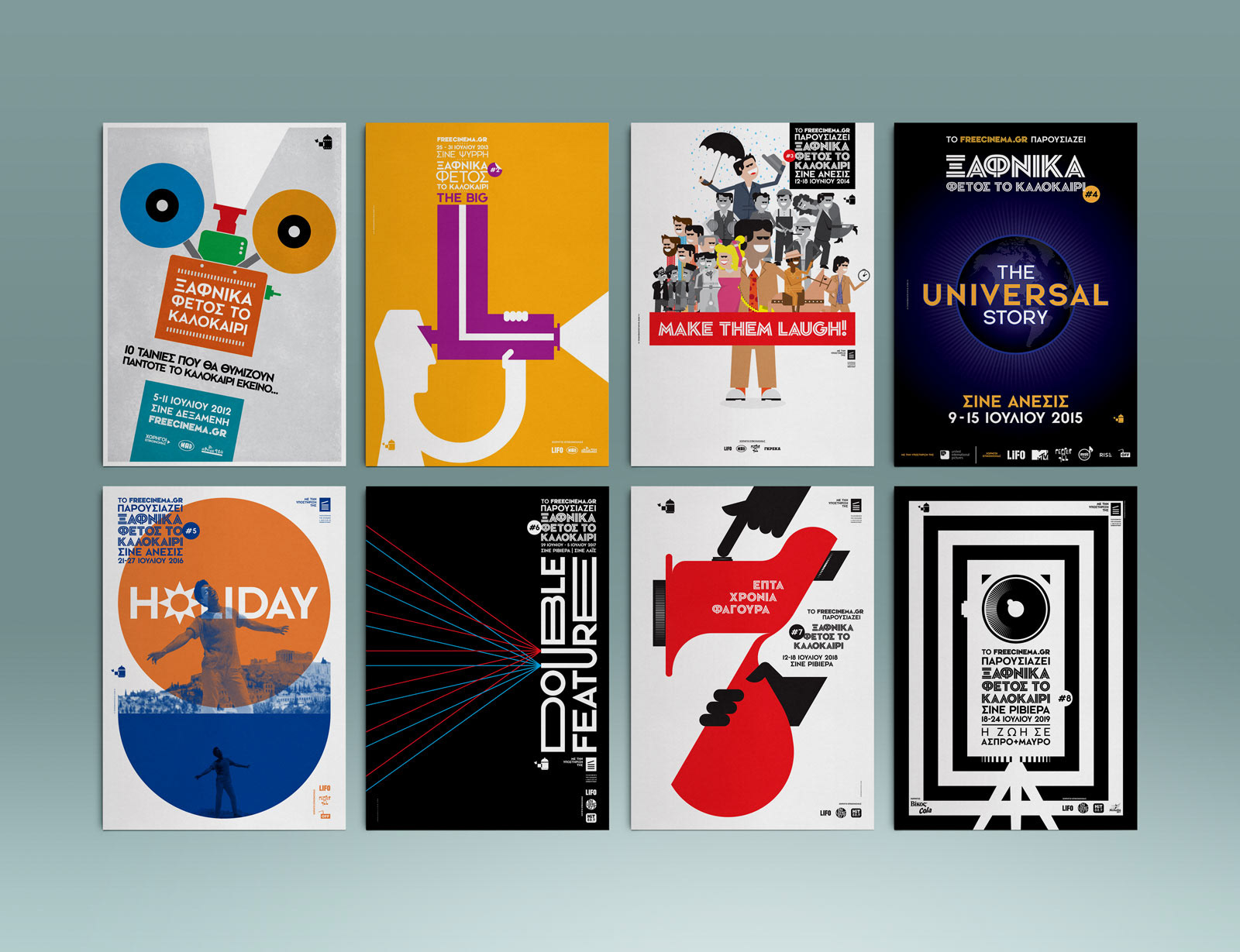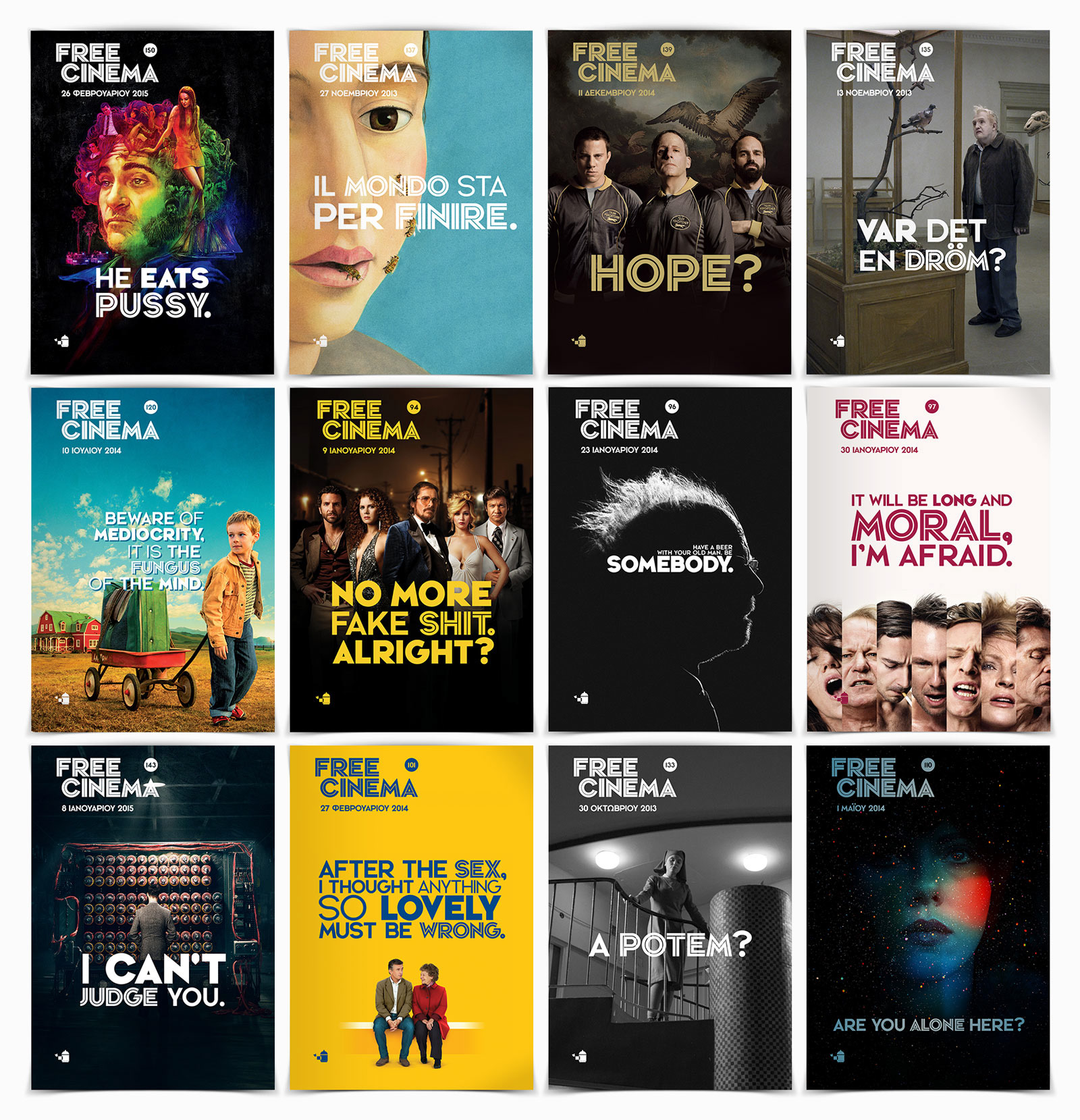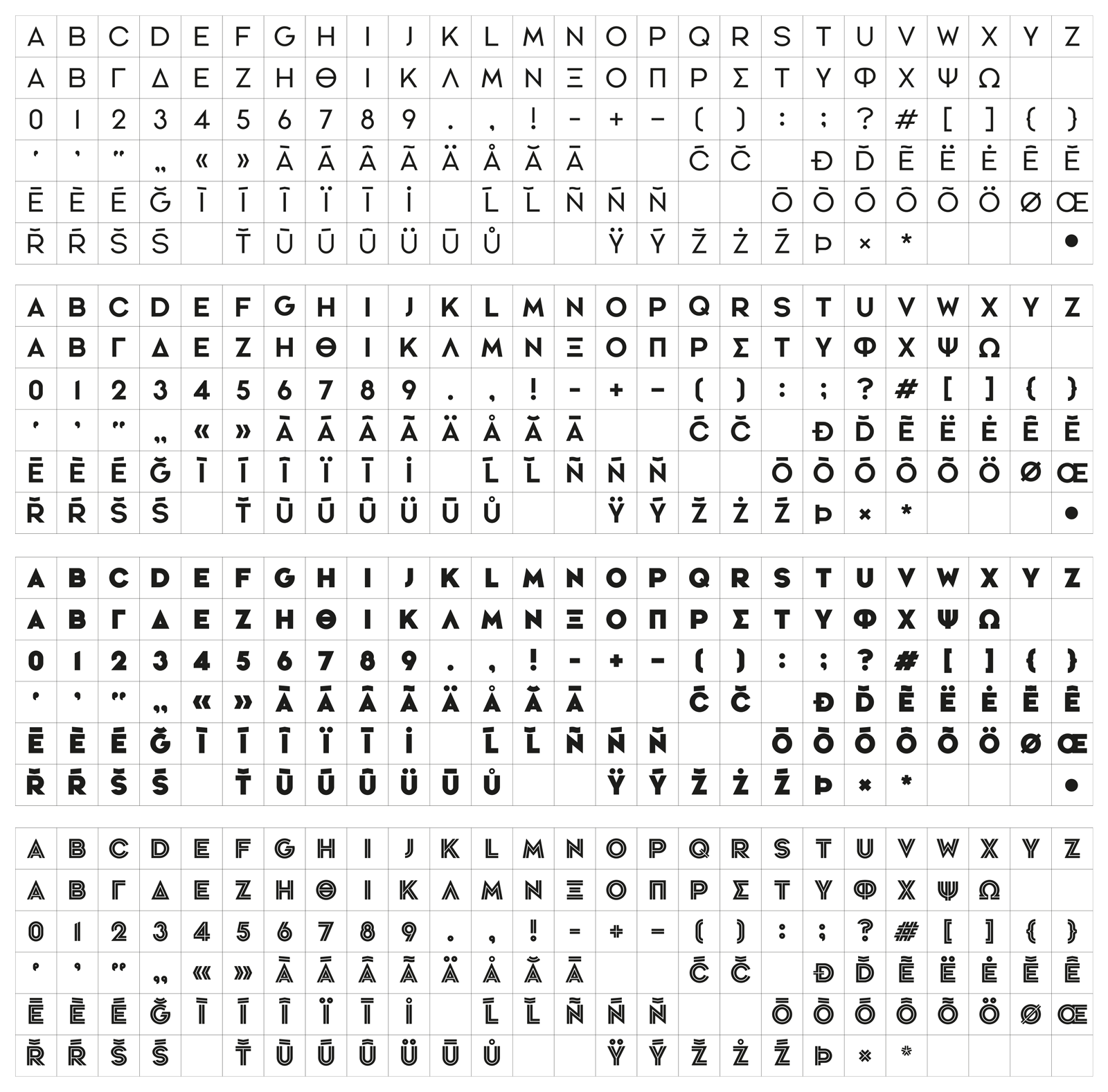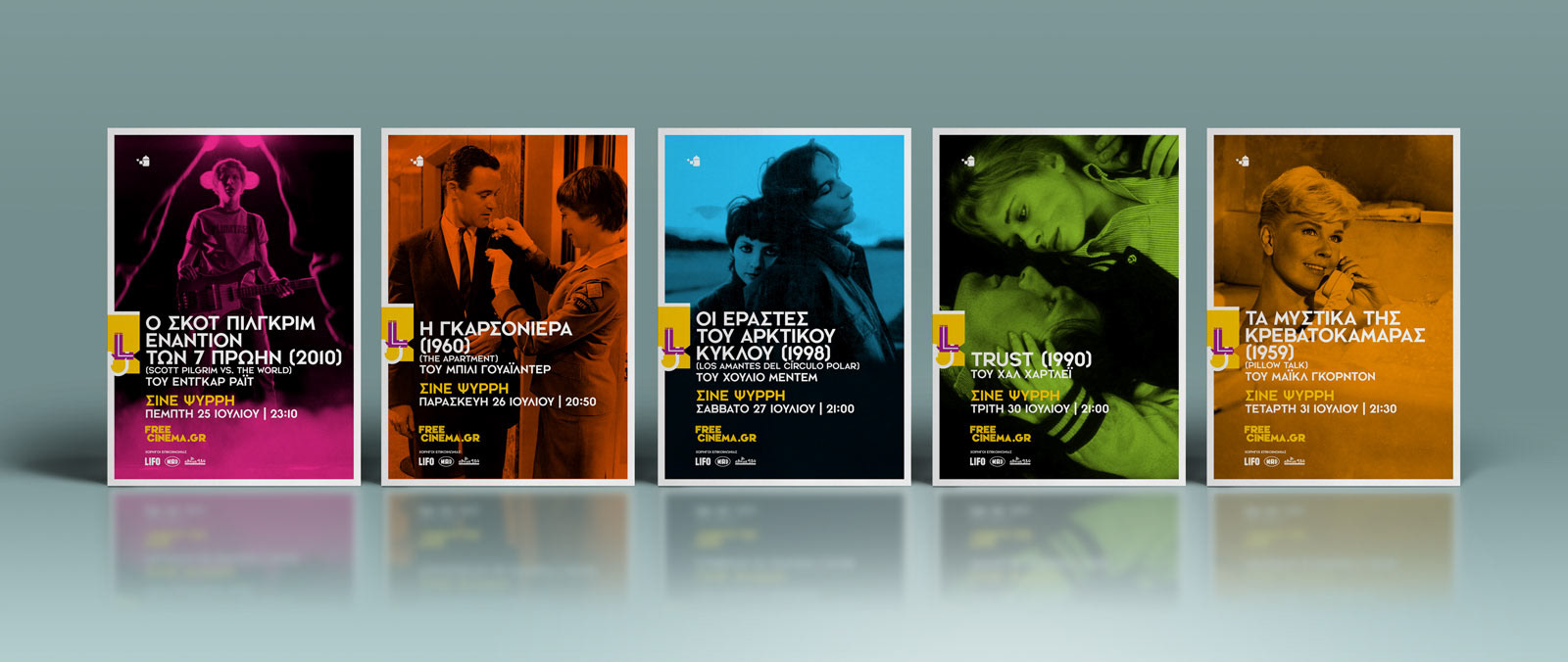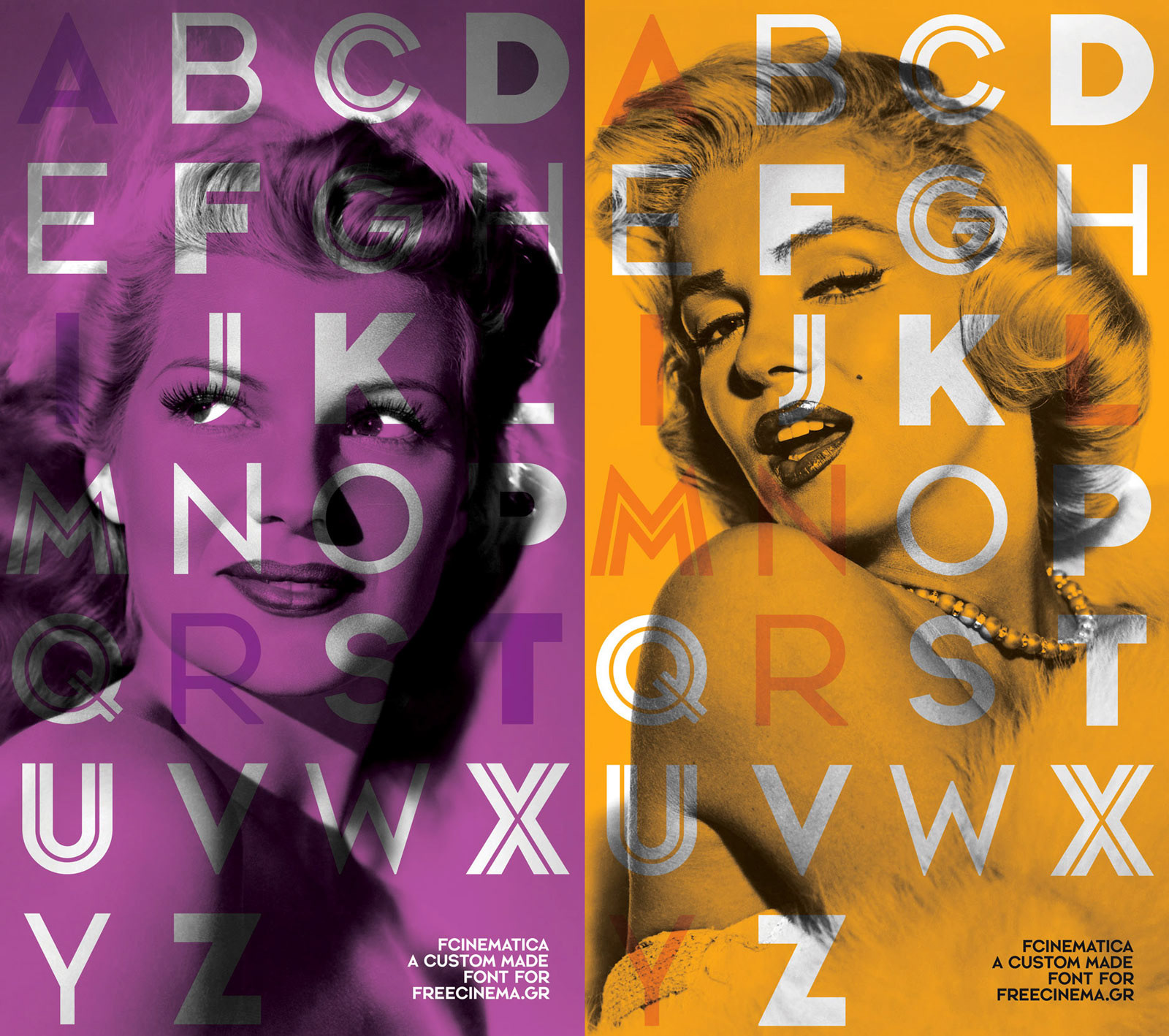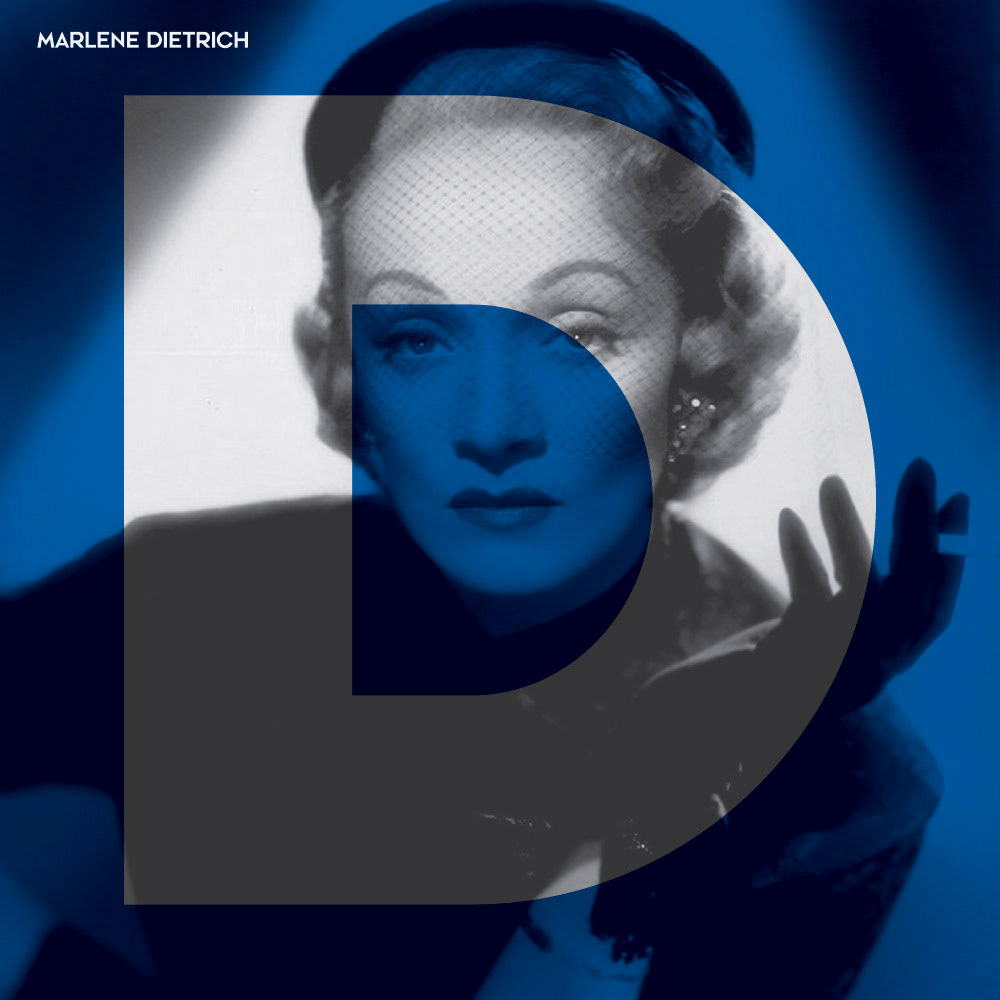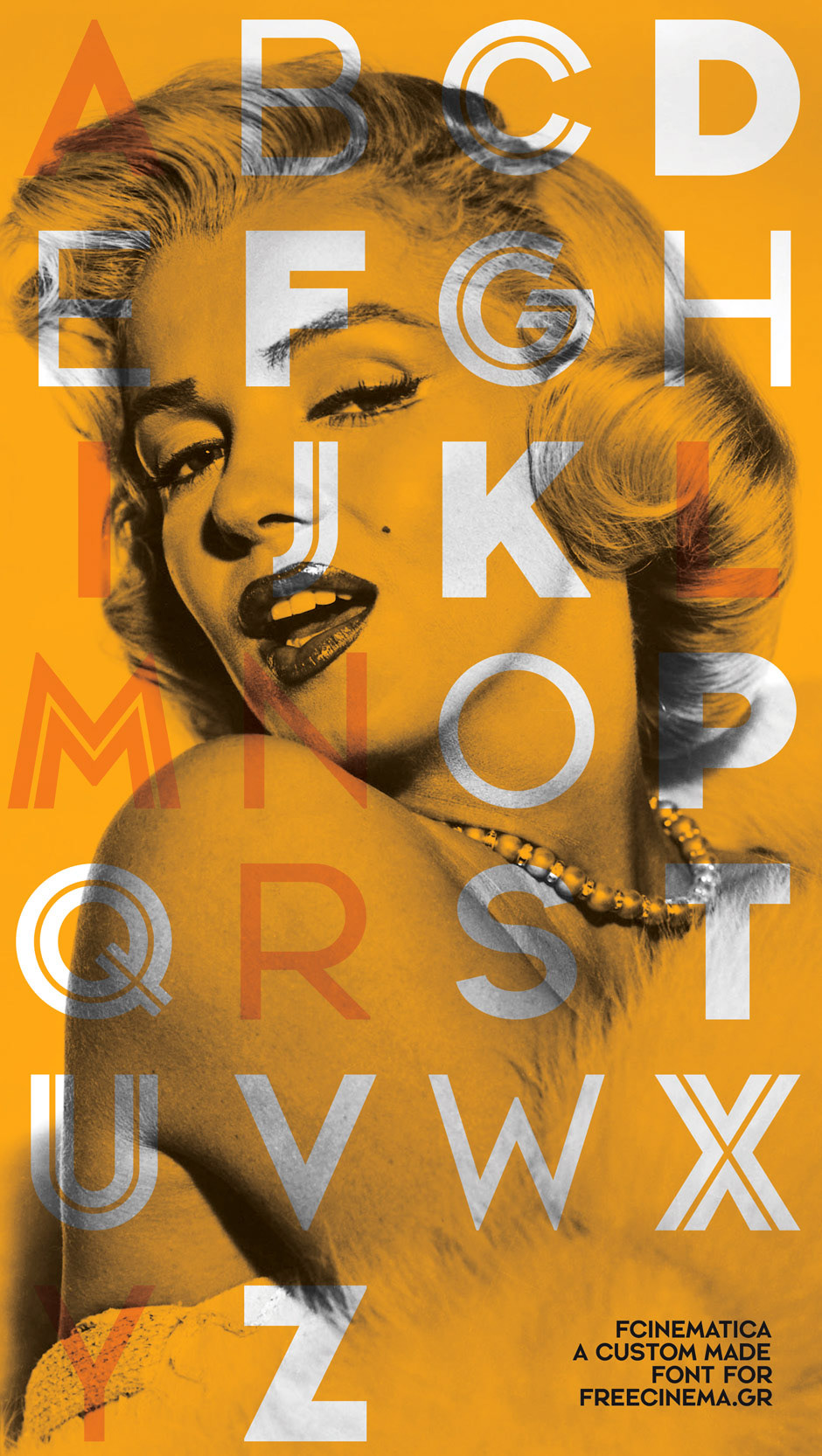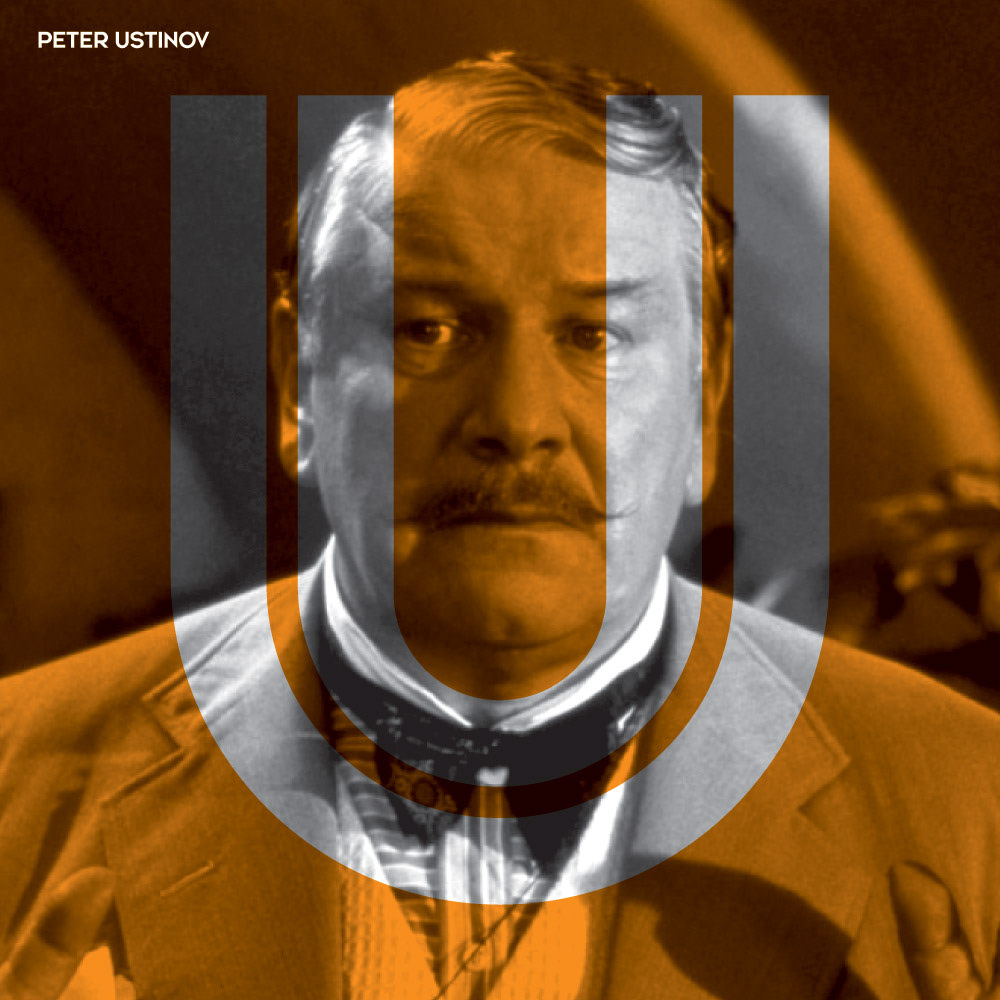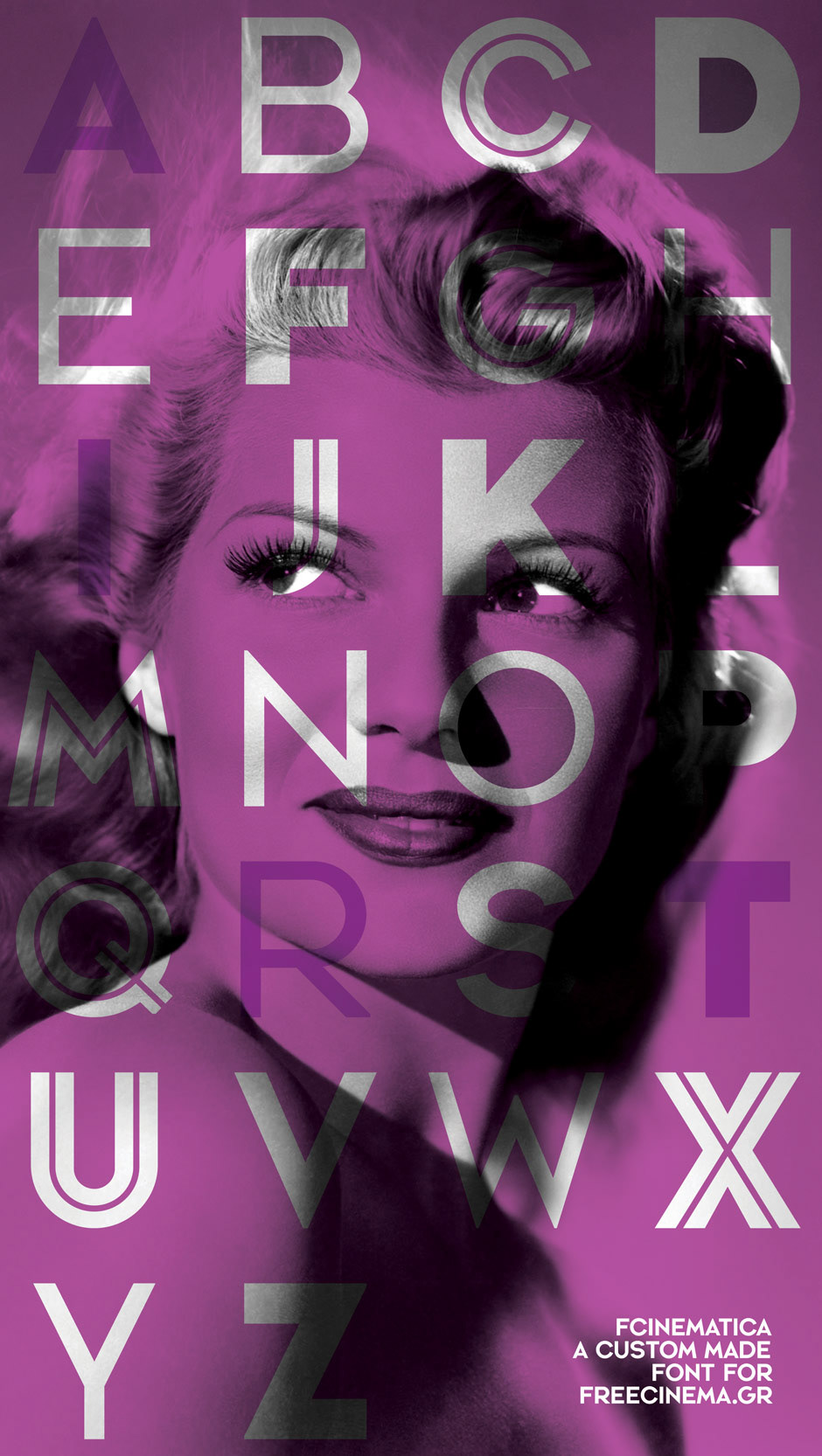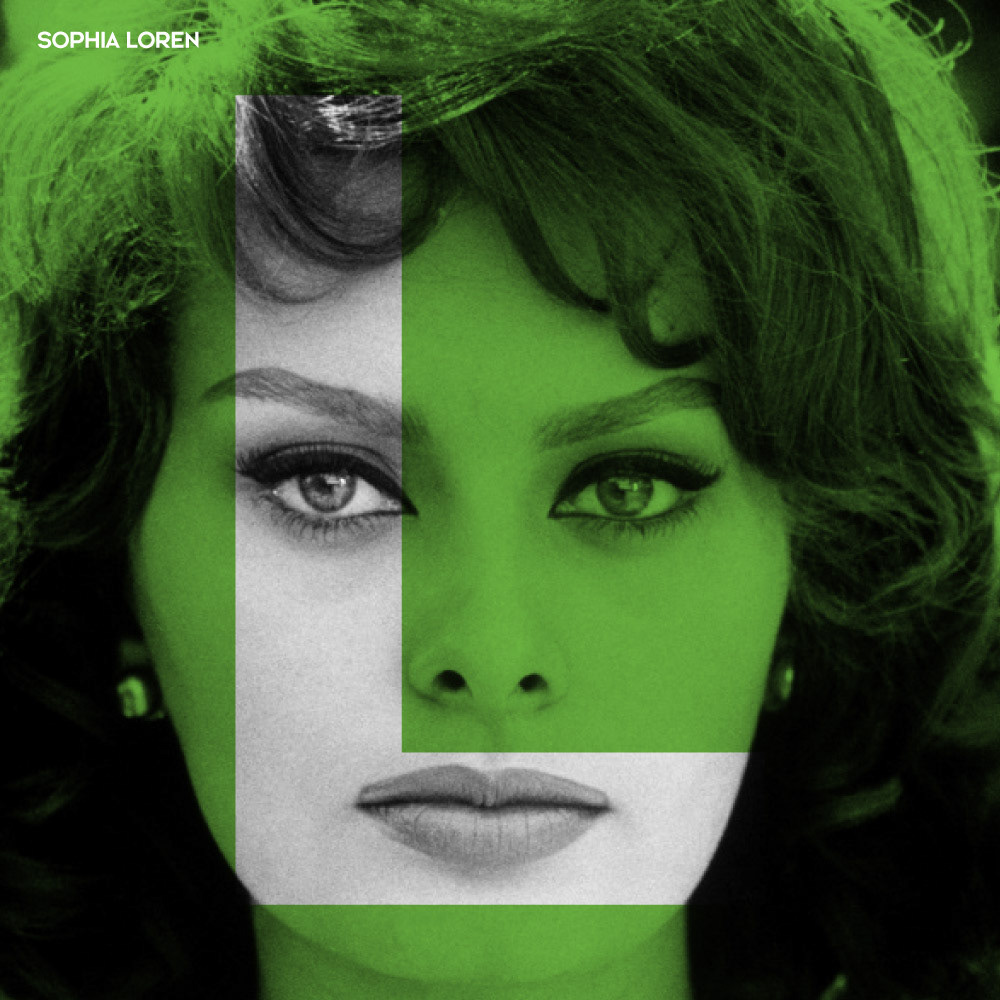
FCinematica, a custom title font designed for www.freecinema.gr, a portal about everything that has to do with cinema.
When working on the identity of Free Cinema we were looking for a way to distinguish the web portal from the competition and give typography a major role on the project. This led us to the decision to design a new custom font for all titles.
The font has since been used in multiple applications, other than the website itself.
It was firstly used for the FreeCinema magazine, a weekly free online (and downloadable) magazine with reviews for all the new releases of the each week and features such as exclusive interviews and stories from the movie industry.
It has also been used for the "I Know What You Did Last Summer" annual summer movie festival by Free Cinema (now in its 11th year) and for several promotional materials that were created over the years.
FCinematica comes in four weights (Light, Regular, Bold and Bold Inline) and supports Latin and Greek.
Promotional material (postcards) for the 1st "I Know What You Did Last Summer" Festival.
All posters for the 2nd "I Know What You Did Last Summer" Festival.
Selection of "daily" posters for the 2nd "I Know What You Did Last Summer" Festival.
The Main posters for the first eight "I Know What You Did Last Summer" Festivals.